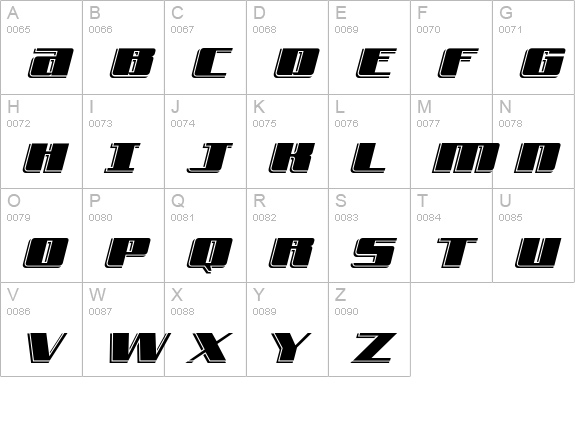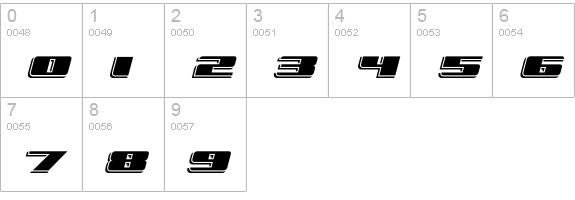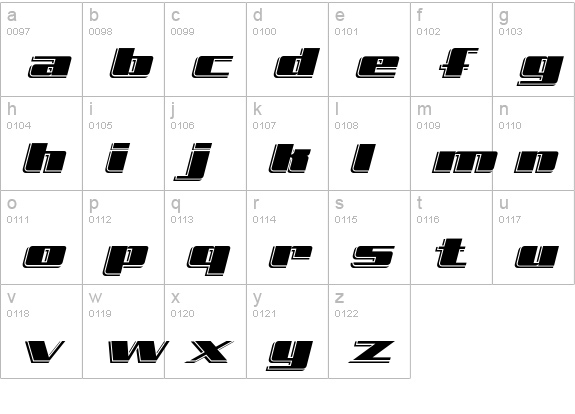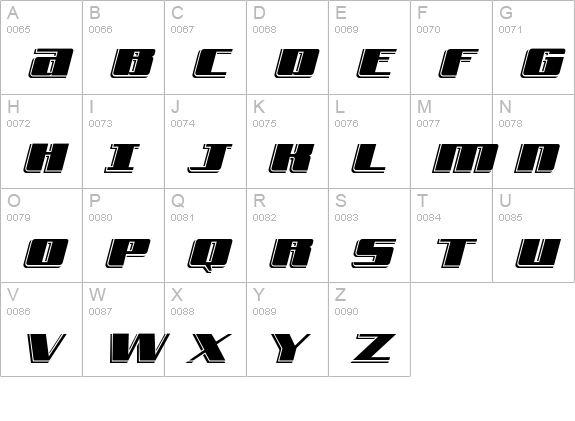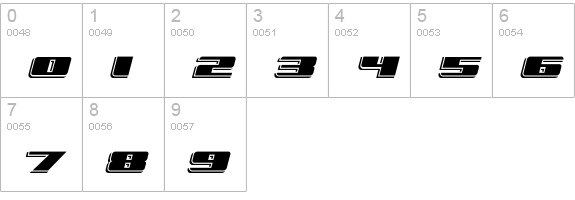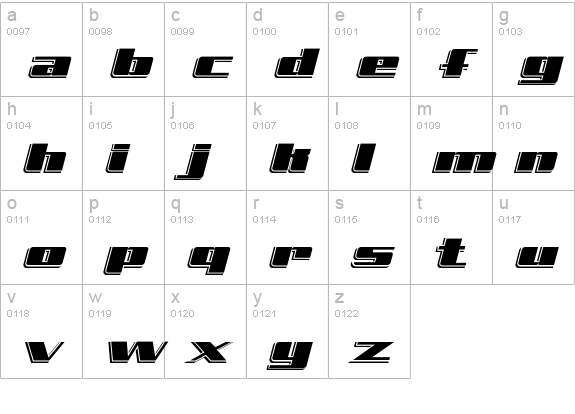
Introducing FreeLine-Express font, a sleek and modern typeface designed to elevate your design projects to the next level. This versatile font features clean lines and a contemporary aesthetic, making it perfect for a wide range of applications including branding, advertising, packaging, and more. The best part? FreeLine-Express font is completely free to download at FontsMarket.com, allowing you to add a touch of sophistication to your designs without breaking the bank. With its timeless appeal and easy readability, this font is sure to become a staple in your design toolkit. Whether you're creating a logo, crafting a poster, or designing a website, FreeLine-Express font offers the perfect balance of style and functionality. Download it today and unleash your creativity with this exceptional typeface.